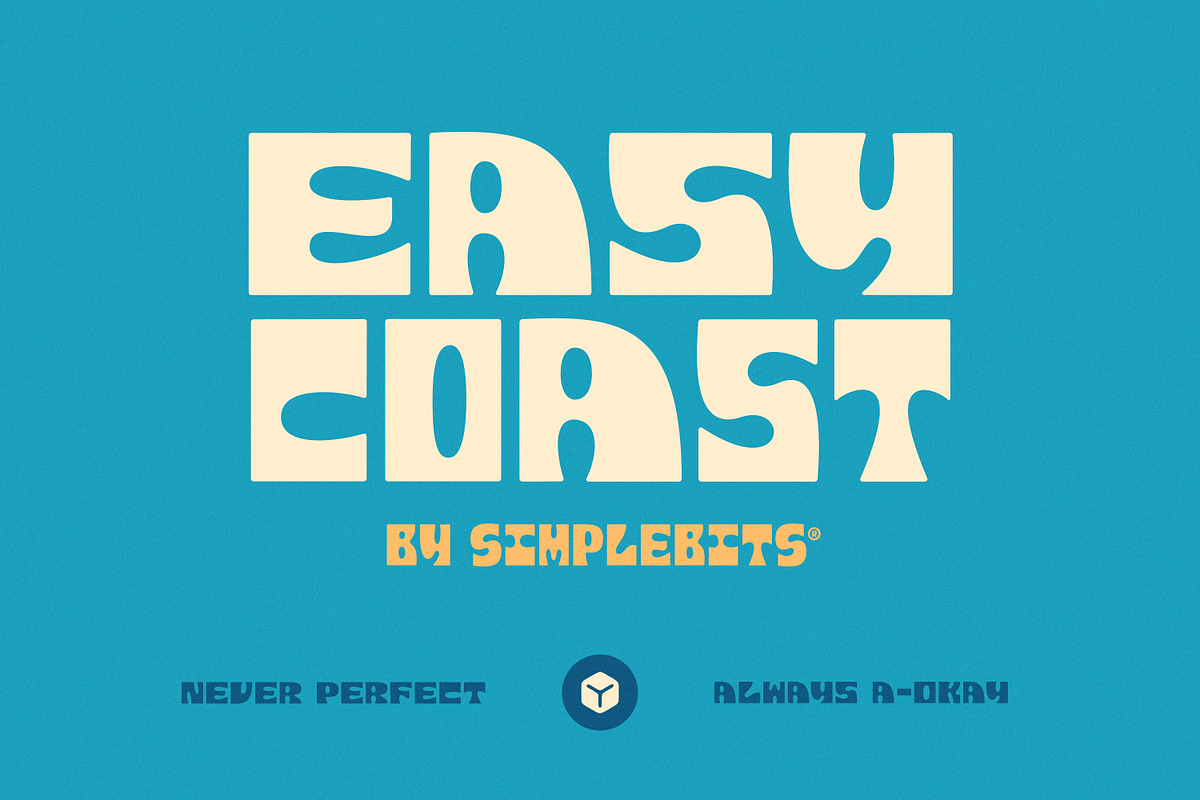
Easy Coast captures the laid-back energy of coastal surf culture and translates it into a bold, retro display face. Rooted in the tactile history of carved wood blocks, the typeface blends flowing, groovy shapes with sturdy display presence. Designed for impact, Easy Coast reads strong at large sizes and brings personality to posters, packaging, logotypes, and editorial headlines. The family ships in two complementary widths—Regular and Condensed—so you can mix and match to build tight, expressive lockups and dynamic typographic hierarchies.
Design Inspiration & Craft
Drawing inspiration from saltwater, rolling waves, and classic wood type, Easy Coast channels retro surf aesthetics without sacrificing modern clarity. Letterforms show carved, rounded terminals and flowing counters that suggest motion and rhythm. We translated those carved wood sensibilities into digital outlines, then explored physical production: wood type versions were created to test letterpress behavior, leading to a deeper understanding of how these shapes interact with ink, impression, and texture. That hands-on process informed final spacing, stroke modulation, and alternate designs to ensure the font performs both on-screen and in print.
Character & Voice
Easy Coast communicates an approachable, vintage attitude while remaining adaptable across contemporary contexts. The voice suits nostalgic branding, lifestyle and apparel graphics, music posters, event identities, and any application that benefits from warm, tactile display type. Whether you want a playful headline or a confident logo wordmark, Easy Coast supplies a distinctive, cohesive personality.
Features & Technical Details
Easy Coast includes the essential tools designers need to compose effective display typography. The family was built to work in combination—regular and condensed widths were designed specifically to interlock visually, creating compact and balanced lockups that read clearly at different scales.
Included Glyphs
- All-caps alphabet (A–Z)
- Numerals (0–9)
- Basic punctuation and common symbols
- Alternate characters for select letters to vary tone and rhythm
- Two widths: Regular and Condensed for mixing and matching
OpenType & Usability
Recommended Uses & Pairing
Easy Coast excels wherever a bold, nostalgic display voice is required. Use it for:
- Posters, event flyers, and concert art
- Logotypes, badges, and packaging labels
- Editorial mastheads and feature headlines
- Apparel graphics and lifestyle branding
- Signage and point-of-sale displays
For harmonious layouts, pair Easy Coast with neutral sans-serif body text (choose a simple geometric or humanist sans) to balance the display’s personality. Use condensed for tight headline stacks and regular width for wider, more open wordmarks.